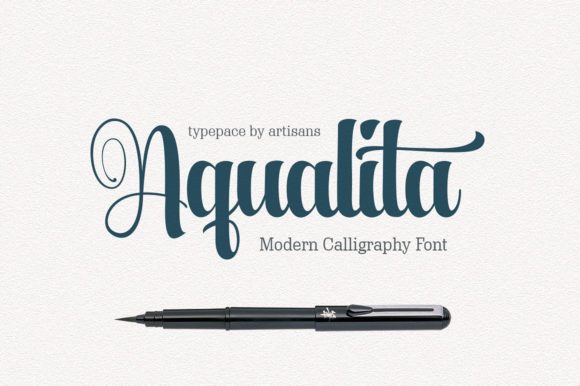
Dive into the enchanting realm of Aqualita Font, a script masterpiece meticulously crafted by Artisans. This font family exudes a captivating aura of casual charm, effortlessly blending elegance and approachability. Aqualita's handwritten strokes evoke a sense of authenticity and warmth, inviting readers to connect with your content on a personal level.
With its remarkable versatility, Aqualita seamlessly adapts to any context, whether it's adorning vibrant blog graphics or standing as a standalone headline. Its ability to thrive amidst visual clutter makes it an ideal choice for designers seeking to make a lasting impression. Aqualita possesses an innate ability to transform ordinary words into captivating works of art, leaving readers mesmerized by its visual appeal.
Experience the transformative power of Aqualita Font and witness how effortlessly it elevates your blog graphics to new heights of creativity. Unleash your imagination and let the graceful strokes of Aqualita carry your message with a touch of elegance and sophistication. Make the switch to Aqualita Font today and embark on a journey of visual storytelling that will leave your audience spellbound.